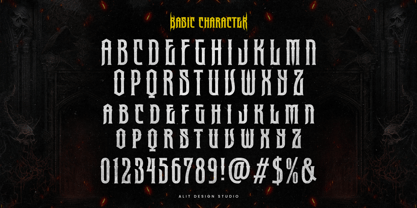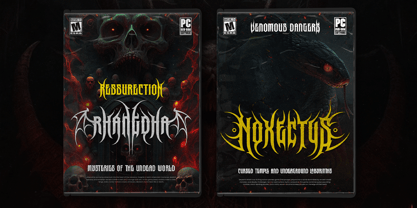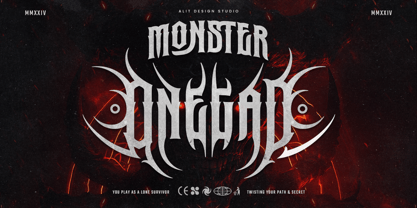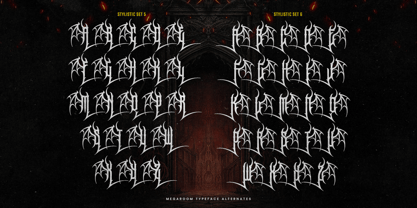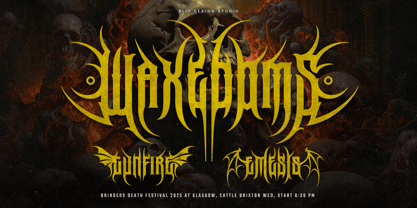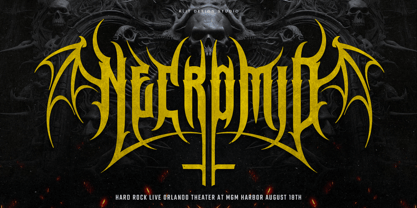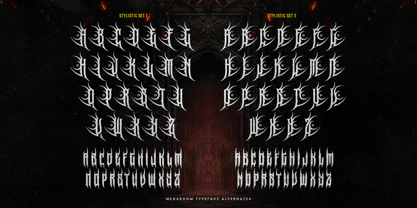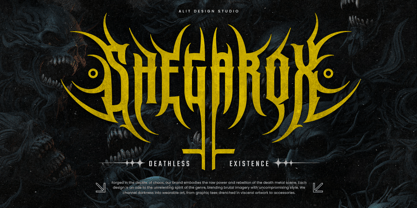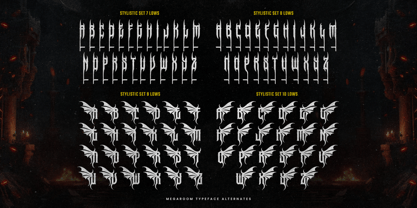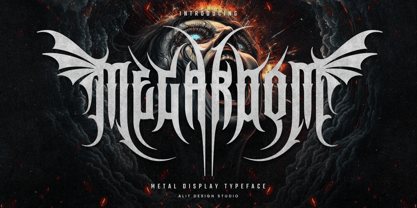
Megaroom
by Alit Design
Megaroom Typeface - Modern Death Metal Font
Unleash the fury with Megaroom Typeface, the ultimate modern death metal font designed to dominate your creative projects. This aggressive and edgy typeface channels the raw energy of death metal while maintaining a modern, gamer-inspired aesthetic.
Whether you're creating artwork for a brutal band logo, designing a fierce gaming interface, or crafting visuals that scream intensity, Megaroom's sharp edges, jagged forms, and bold strokes will deliver a powerful punch.
Features:
• Dynamic and Fierce: Razor-sharp characters that exude intensity and attitude.
• Modern Aesthetic: Combines the brutal essence of death metal with contemporary design principles.
• Versatile Usage: Perfect for music posters, game titles, merch, and dark-themed branding.
• All Caps Display: Designed to grab attention with a commanding presence.
• Special Characters: Includes numerals, punctuation, and unique symbols to complete the look.
Step into the chaos of creativity with Megaroom Typeface, where modern style meets metal-inspired ferocity. Make your designs stand out and leave an unforgettable impact.